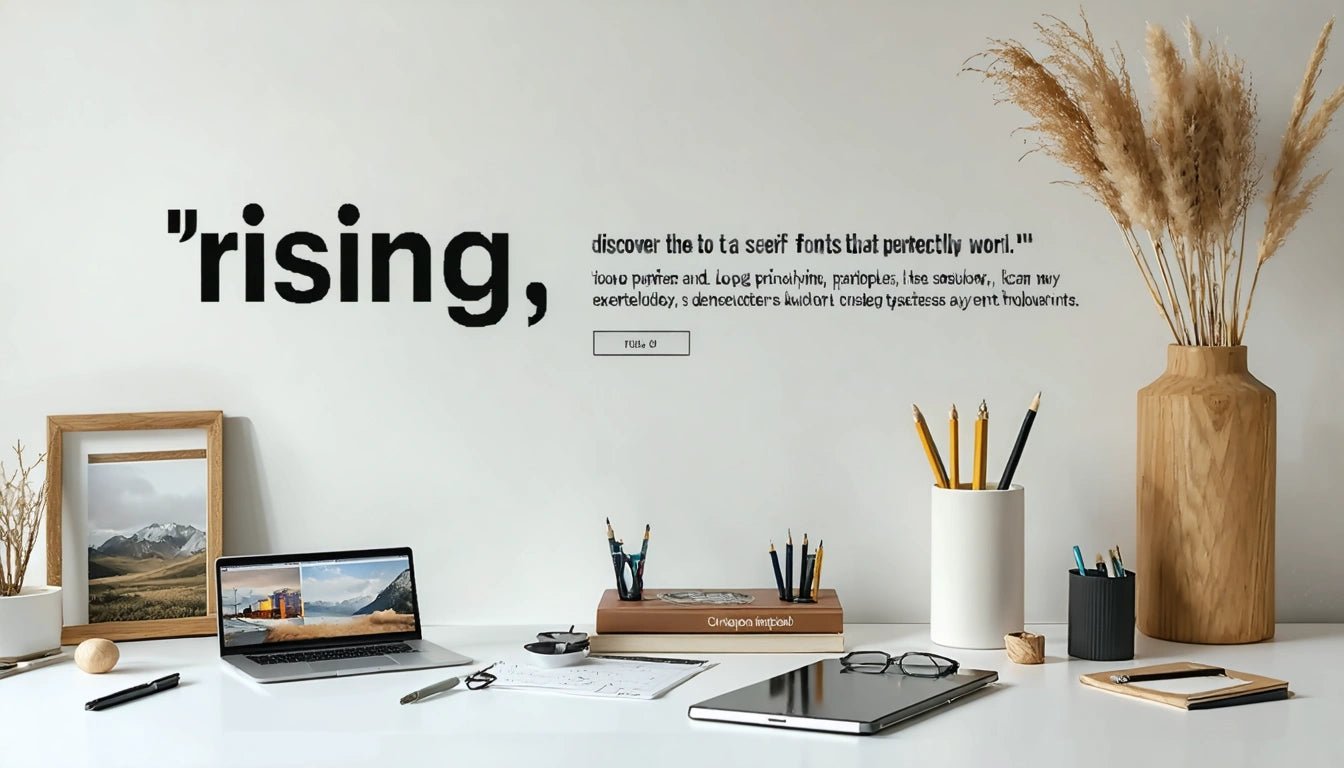
Choosing the Perfect Font: Top Sans-Serif Picks and Matching Styles for 'Rising'
Selecting the right font for a word like 'Rising' requires understanding both typography principles and brand positioning. The right typeface can convey upward momentum, growth, and forward-thinking values that align perfectly with what 'Rising' represents. Sans-serif fonts, with their clean lines and modern appearance, are often ideal choices for conveying progress and innovation.
Understanding Sans-Serif Fonts for Dynamic Words
Sans-serif fonts are characterized by their lack of decorative strokes (serifs) at the end of characters. This creates a clean, minimal aesthetic that feels contemporary and progressive. According to font definition experts, sans-serif typefaces convey clarity, objectivity, and modernity, making them particularly suitable for forward-looking concepts like 'Rising'.
When representing a concept of ascension or growth, the following characteristics in sans-serif fonts become particularly valuable:
- Clean, uncluttered letterforms that suggest efficiency
- Strong vertical elements that reinforce the upward motion
- Balanced proportions that provide stability while suggesting movement
- Moderate to high x-height for improved legibility across applications
These characteristics help reinforce the semantic meaning of 'Rising' through visual design elements, creating a cohesive message across verbal and visual communication channels.
Top Sans-Serif Fonts That Complement 'Rising'
Geometric Sans-Serif Options
Geometric sans-serif fonts feature letterforms constructed from simple geometric shapes. Their mathematical precision and clean lines make them excellent candidates for representing growth and progress.
- Futura: With its perfect circles and straight lines, Futura conveys forward-thinking optimism and technological advancement.
- Montserrat: Offering a balance of geometric precision with humanist touches, Montserrat feels both modern and approachable.
- Gotham: Known for its architectural influence, Gotham provides a solid foundation with upward momentum in its capital letters.
Humanist Sans-Serif Choices
Humanist sans-serifs blend modernism with human touches, offering warmth alongside contemporary styling.
- Proxima Nova: Balancing geometric and humanist elements, this versatile font family works exceptionally well for upward-moving concepts.
- Open Sans: With its friendly appearance and excellent legibility, Open Sans communicates accessibility alongside progress.
- Avenir: Meaning 'future' in French, Avenir's balanced proportions and clean lines perfectly embody forward movement.
As explored in this comprehensive guide to popular sans-serif fonts, these typefaces offer the right combination of professionalism and contemporary styling needed for dynamic concepts.
Font Pairing Principles for Balanced Typography
Creating effective typography for 'Rising' often involves pairing complementary fonts to create visual hierarchy and interest. When selecting font pairings, consider these principles:
Contrast with Purpose
Pairing a bold, geometric sans-serif for 'Rising' with a more subtle secondary font creates meaningful contrast. For example:
- Primary: Futura Bold for 'RISING'
- Secondary: Avenir Light for supporting text
Weight Variations
Using different weights within the same font family can create sufficient contrast while maintaining cohesion:
- Primary: Montserrat Bold or Black for 'RISING'
- Secondary: Montserrat Light or Regular for body text
According to modern font design principles, this approach creates visual interest while preserving brand consistency.
Typography for Packaging: Making Your Brand Stand Out
Typography plays a crucial role in packaging design, particularly for brands looking to convey upward momentum and growth. When implementing 'Rising' on packaging materials, consider how different substrates and printing techniques affect font appearance.
For instance, when working with specialized packaging formats like blister packaging, font legibility becomes especially important due to the curved surfaces and transparent materials. Sans-serif fonts typically perform better in these applications due to their clean lines and strong visibility even at smaller sizes.
Key considerations for packaging typography include:
- Legibility at various distances and angles
- Durability of design elements across different printing processes
- Scalability across various packaging sizes
- Consistency with broader brand typography
These factors ensure that your typography maintains its impact regardless of how consumers interact with your packaging.
Font Selection Strategies for Future-Forward Branding
When finalizing your font selection for 'Rising', consider these strategic approaches to ensure your typography remains effective and relevant:
Evaluate Across Applications
Test your chosen fonts across all potential applications, from digital interfaces to physical packaging. The ideal font for 'Rising' should maintain its dynamic quality and legibility across mediums.
Consider Multilingual Support
If your brand operates internationally, ensure your chosen font includes character sets for all relevant languages. Many top sans-serif fonts offer extensive language support, as detailed in this comparison of serif and sans-serif options.
Future-Proof Your Selection
Typography trends evolve, but choosing fonts based on fundamental principles rather than passing fads ensures longevity. Opt for established type families with multiple weights and styles to provide flexibility as your brand evolves.
By approaching font selection as a strategic branding decision rather than merely an aesthetic one, you ensure that your typography for 'Rising' communicates the right message consistently across all touchpoints.
Remember that typography is more than just letterforms, it's a powerful visual language that can reinforce your brand's core message. When that message is about growth, progress, and upward momentum, the right sans-serif font becomes an invaluable asset in your visual communication toolkit.